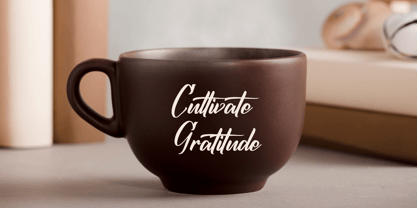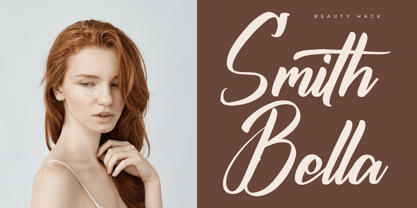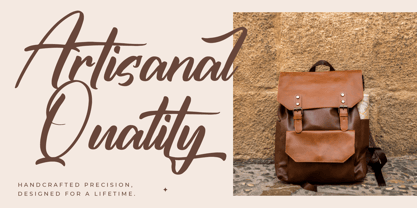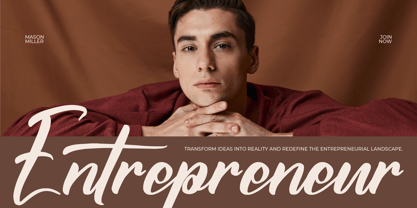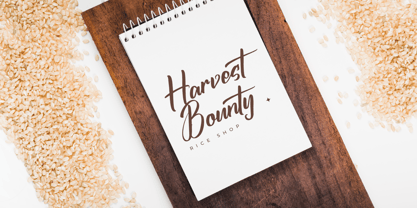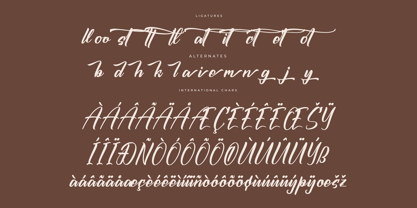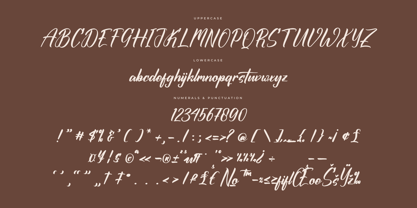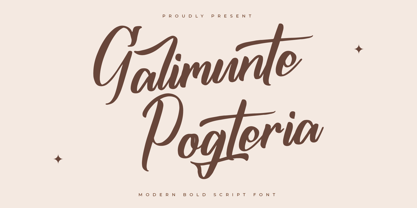
Galimunte Pogteria
The Galimunte Pogteria Font Family was designed by Heru Utama Putra and published by Letterena Studios. Galimunte Pogteria contains 2 styles and family package options. More about this family
Galimunte Pogteria – Modern Bold Script Font , from Letterena, is a Luxury Script font, suitable for any projects such as: logos, branding projects, homeware designs, product packaging, mugs, quotes, posters, shopping bags, t-shirts, book covers, name card, invitation cards, greeting cards, label, photography, watermark, special events, and all your other luxury and beautiful projects that need a Luxury serif taste.